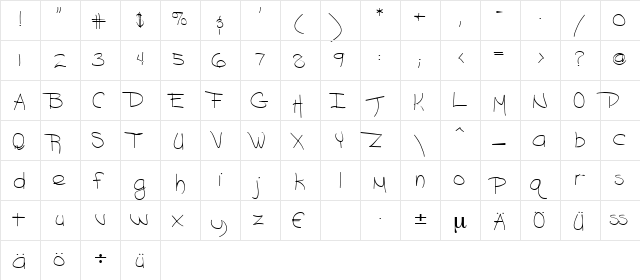
Mirakel Regular
Design Context for Mirakel Typeface
Mirakel is a composed and adaptable typeface that performs quietly and consistently across a wide range of design contexts.